In other words the street fonts are realistic graffiti fonts that can be used for different typography designs. Graffiti means something defferent and well using by young people. The street fonts is an amazing text-based images or a logos with different colors and tons of text effects. The most street artists uses calligraphic type for painting the letters on the wall.
So, today here we come out with more as 30 classy street art fonts for your investigation as a designer. You can use these fonts pefectly for outdoor designs, poster, flyers, covers and etc.
Free City of Boy Font
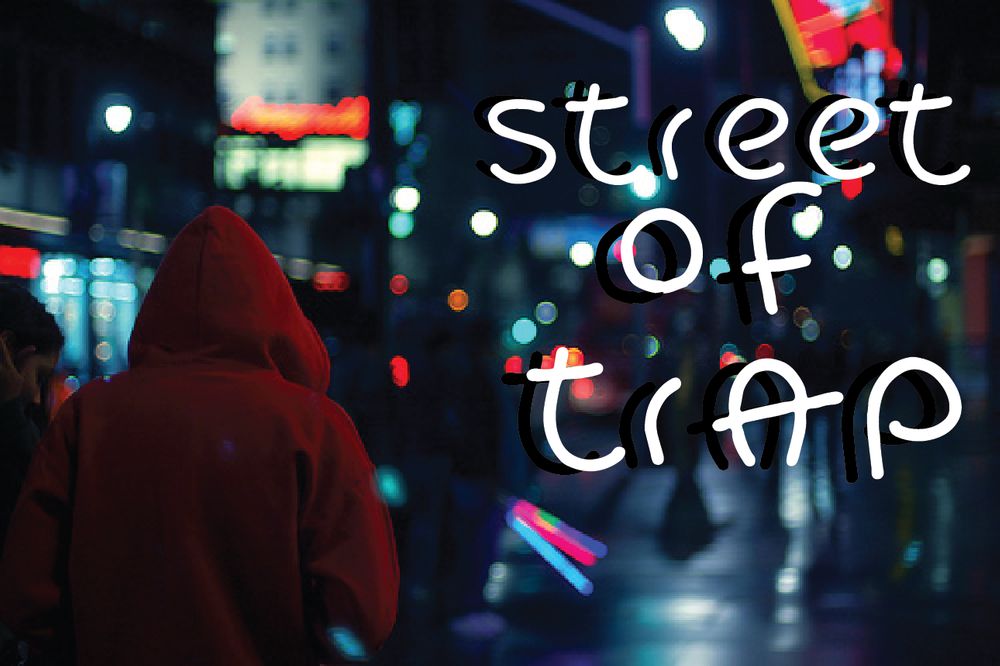
Hand lettered young generation street font for your design project. Perfect for street arts, posters, flyers and others. Free for personal and commercial use.
Free Wickhop Handwriting Font
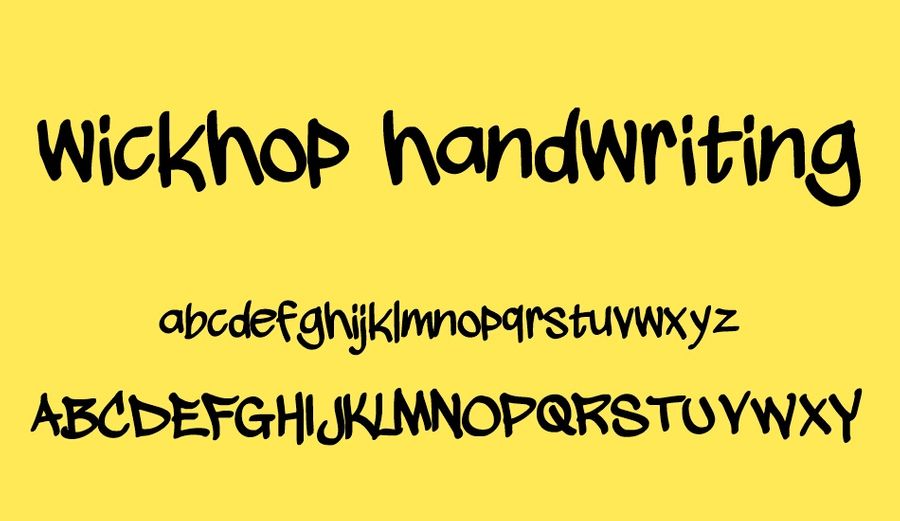
This font is for designers who need handwriting style font for design projects. Perfect for street arts, posters, flyers and others. Free for personal and commercial use.
Stay High Font
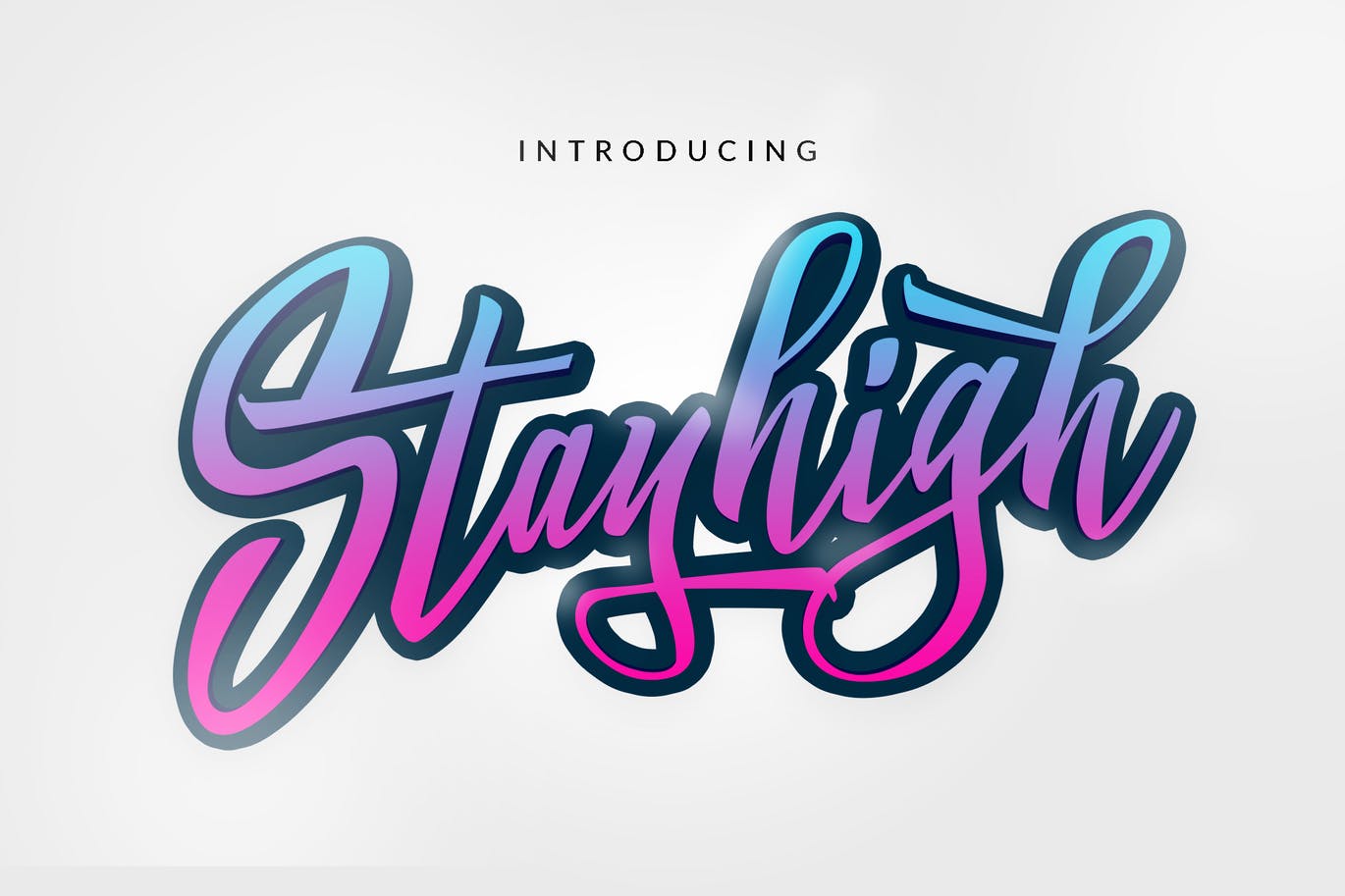
It is inspired by handwritten letters and some combination of street and lifestyle styles. This fonts is ideal for signature, logo, correspondence, wedding invitations, letterhead, signage, labels, newsletters, posters, badges and etc.
Pylox Street Font
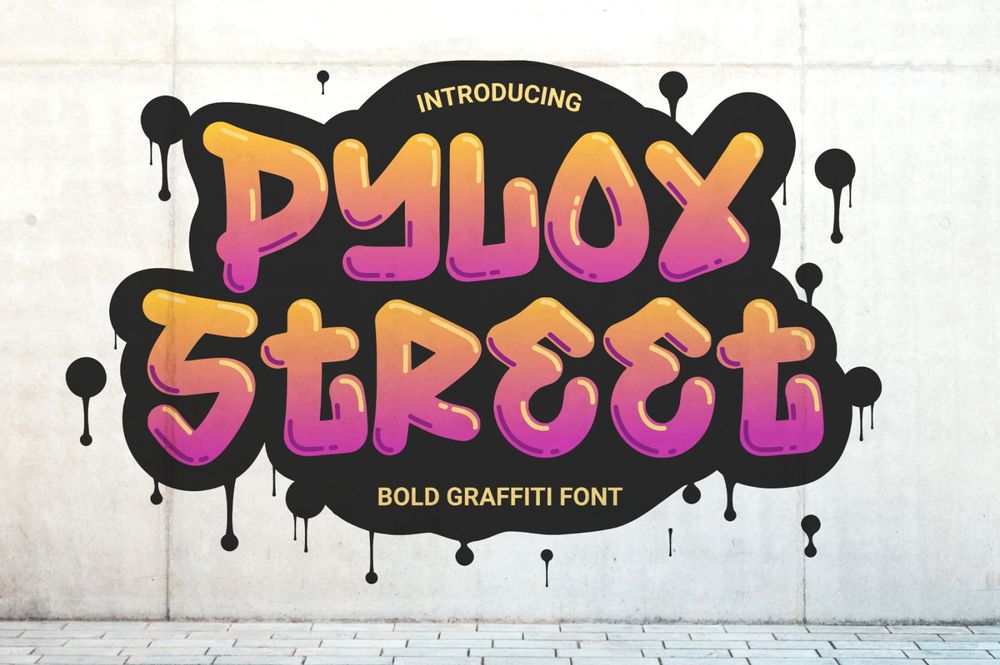
Inspired from street art born this font suitable for many design project such as branding, packaging, logo, wall art, headline, template, banner, poster, and many more projects. Include all caps, punctuation, and numerals.
Street Rush Font & Graphics
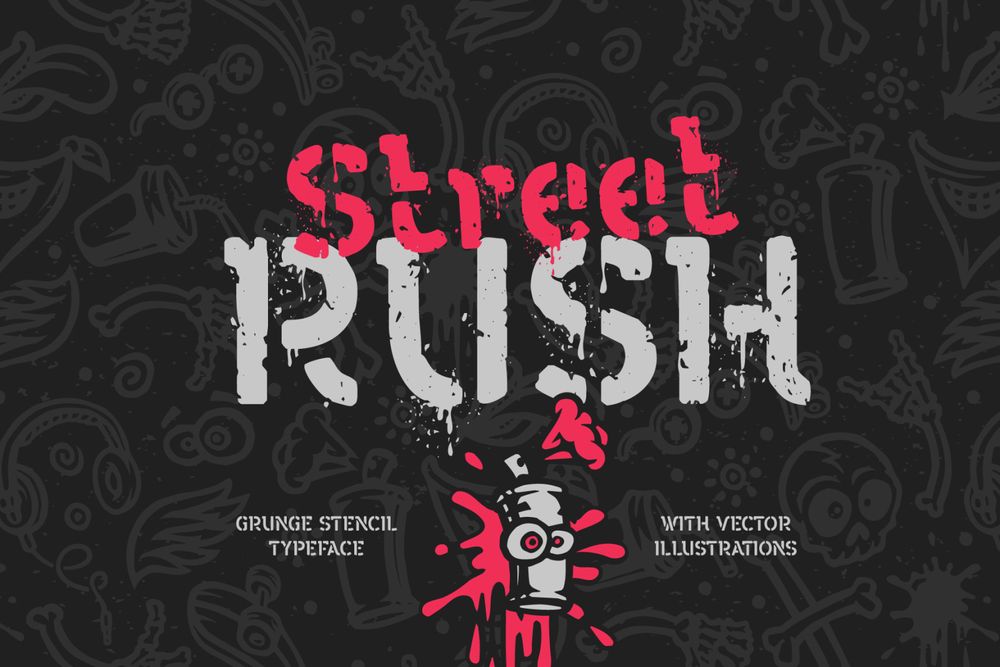
It’s a stencil typeface with grunge and clean variations. Street rush font will perfectly fit for t-shirt print with different lettering compositions. Also you will get a set of vector illustrations that will help you create a unique funny prints.
Rockside Brush Font
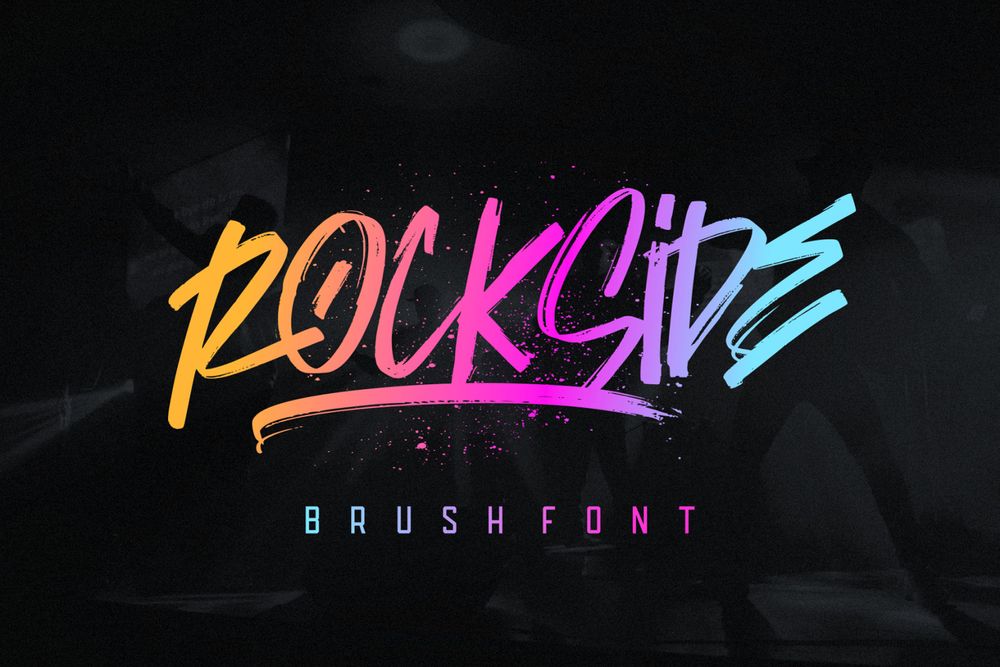
It is designed to give the impression of urban, young, and sloppy. This font is suitable for brands, apparel, clothing, logos and others. Rockside font is also available for swashes.
Free The Graffiti Font
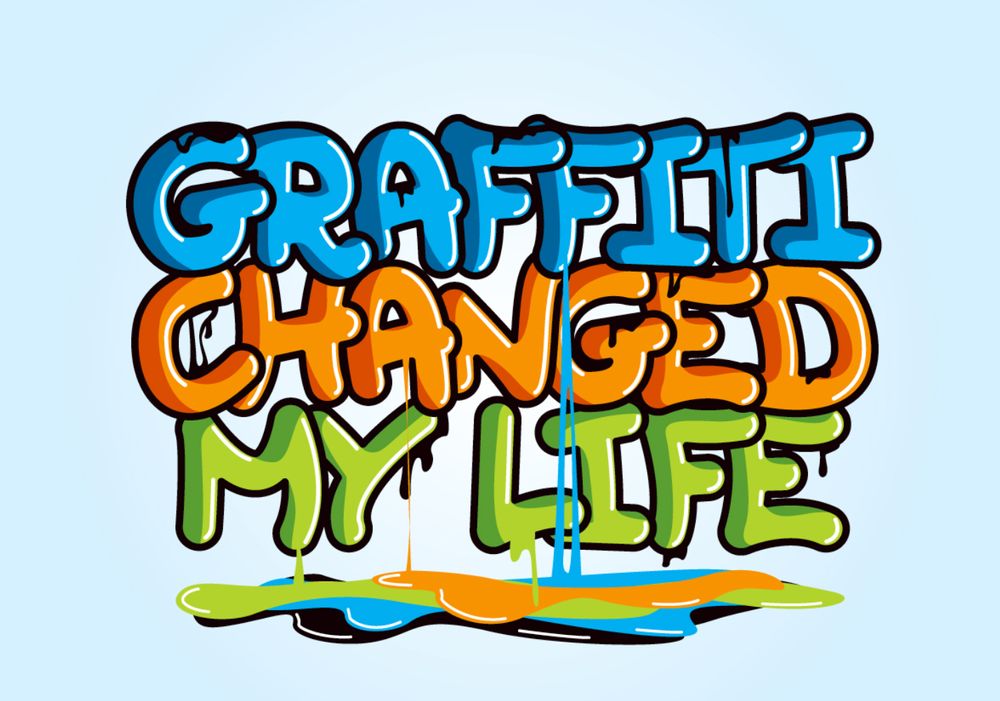
Handmade graffiti font available in black and white and colorful versions. Perfects for t-shirt design, street art, posters and other. Free for personal and commercial use.
Free Don Graffiti Font
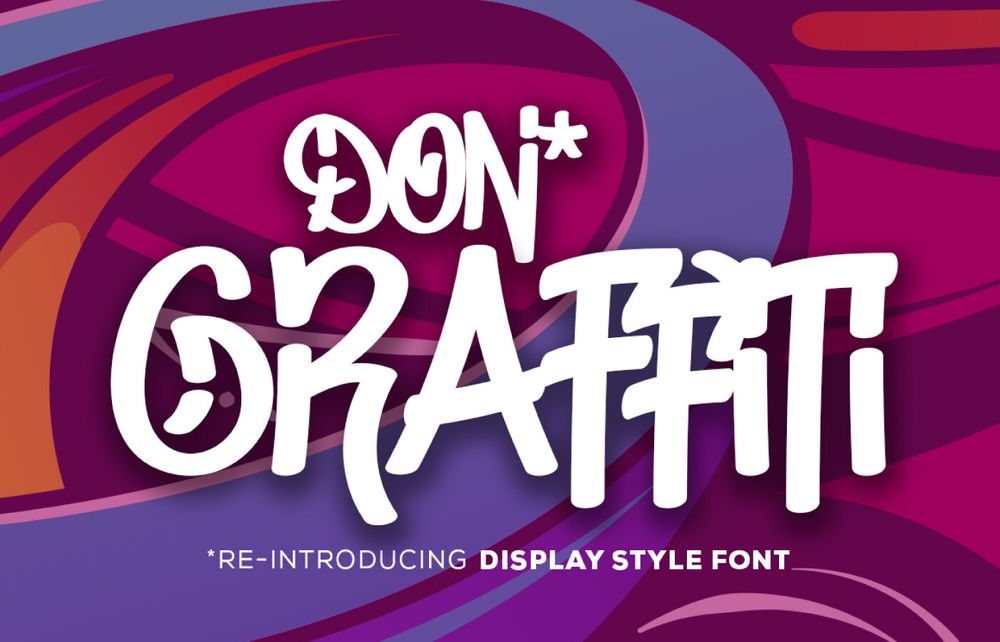
It is old school urban inspired graffiti style display font with a clean touch that is perfect for your designs to have that authentic look and feel. Free for personal and commercial use.
Free Streetbrush Goshbe Font
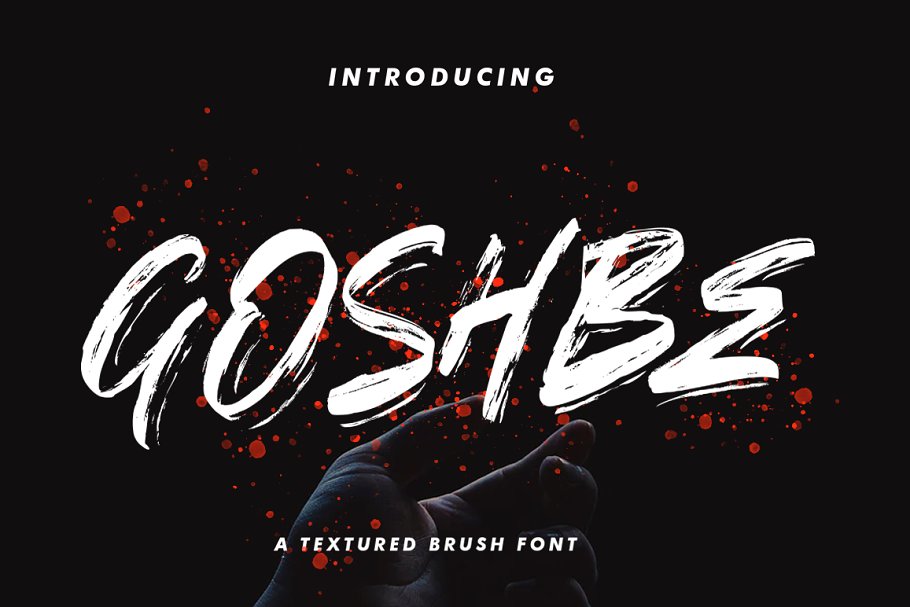
It is a textured brush font. Goshbe is ideal for logos, apparel, quotes, product packaging, t-shirt, hoodies and other. Free for personal and commercial use.
Better Rolling Brush Font
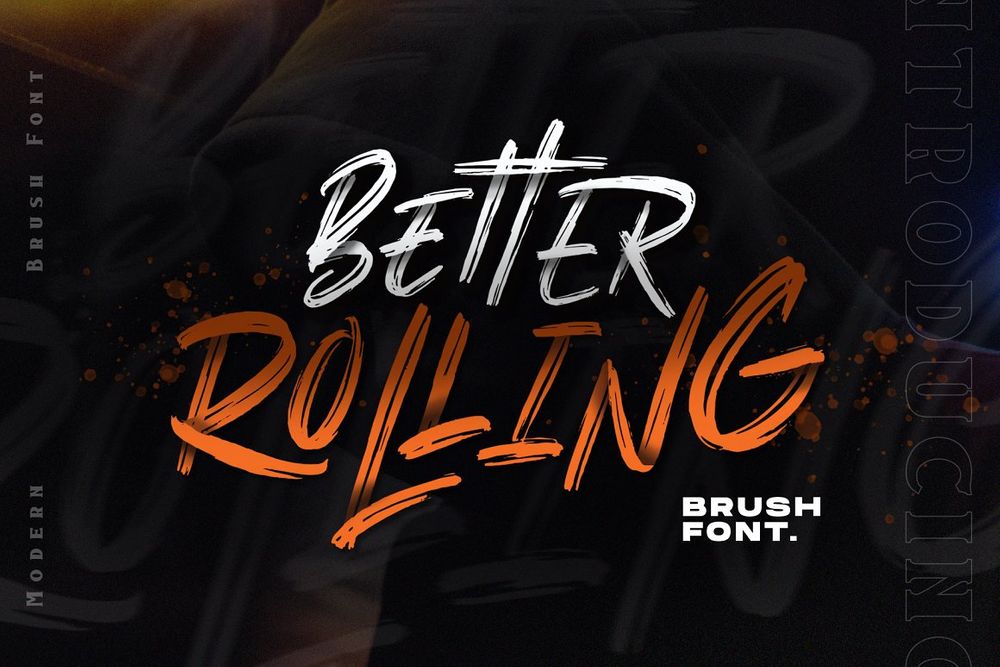
It is the modern hand brush font, a supercharged, street-wise brush font bursting with energy. Suitable for any art such as branding, logos, handwritten quotes, product packaging, merchandise, blog design, modern advertising design, invitation and etc.
Free Hunting Street Font
Hunting is a modern script typeface, this font made with perfect combining of each characters. It looks original and can be used for all your project needs. Free for personal use only.
Dallime / Modern Street Font
A calligraphy style opentype font, so beautiful on invitation like greeting cards, branding materials, business cards, quotes, posters, and etc.
Vandalism / Urban Street Brush Font
It is a decorative brush font that fits with urban lifestyle. The font is suitable to use for many occasion such as branding, photography, quote, music, poster, event and etc.
Heares Street / Brush Font
This Font came with opentype features such stylistic alternates, stylistic sets & ligatures good for logotype, poster, badge, book cover, tshirt design, packaging and etc.
Starshy Street Brush Font
It is a brush font with street graffiti style and scratch effect make this font looks bold and natural. Perfect for branding projects, logo, wedding designs, social media posts, advertisements, product packaging, product designs and etc.
Slightly Marker / Brush Font
It is a caps font with street style brush. Contain uppercase and lowercase in different style, number, symbol, and also with multilingual support. You can use this font for any project such as a branding, poster, or quotes.
Dope Script Font
It is a cool and street-wise handbrushed font. It’s raw, rough around the edges, and ready to make a big impression on your merchandise, logos, posters and display text.
Bigbone Font
Design like a professional with this typeface that fits perfectly for your wedding invitations, street ads, Instagram posts, t-shirt design, branding and etc.
The Overcook / Graffiti Font
It is a styling font that has the characteristics of street art that shows freedom and is filled with unique characters. Ideal for t-shirt designs, posters, flyers, decorations and etc.
Brotherhood / Brush Script Font
It is a modern, hand-drawn typeface. It has a elegant, classy look. It’s a great font for fashion, apparel projects, signature, album cover, logo, branding, magazine, social media and etc.
Therhog Graffiti Brush Font
It is stylish graffiti brush inspired from graffiti street project art. Perfect for branding projects, logo, wedding designs, social media posts, advertisements, product packaging, product designs, label, photography, watermark and etc.